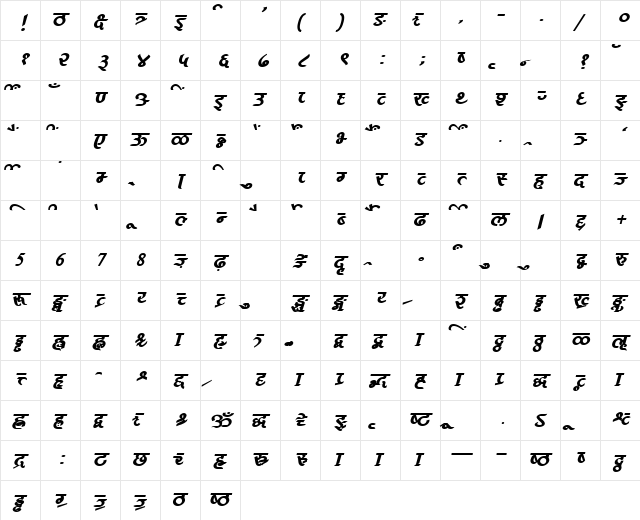
AkrutiDevPooja BoldItalic Font Preview
AkrutiDevPooja BoldItalic
Design Context for AkrutiDevPooja Typeface
AkrutiDevPooja offers clean, dependable letterforms without strong stylistic allegiance, making it a practical choice for designers who need flexibility. The slanted form adds forward momentum and visual energy. Its bold stroke weight gives it real presence on the page.
Pro Tip: Use AkrutiDevPooja for emphasis, pull quotes, and subheadings where its slanted energy can add rhythm to the layout.